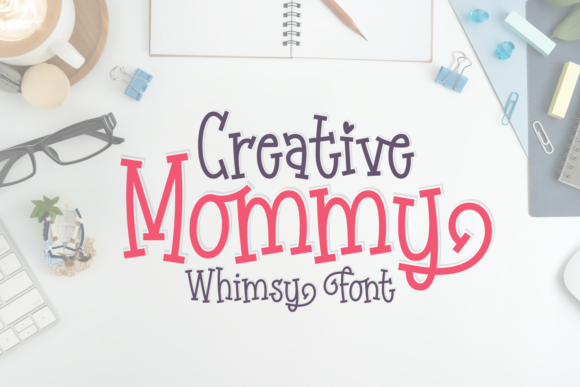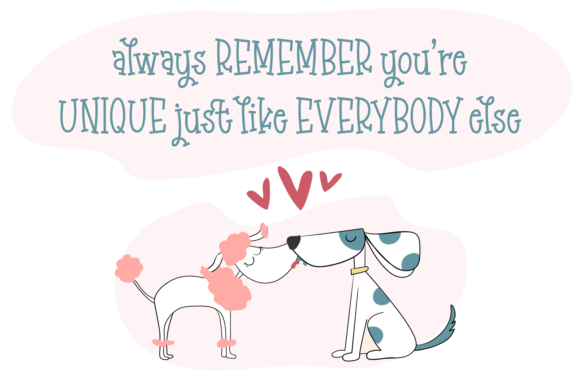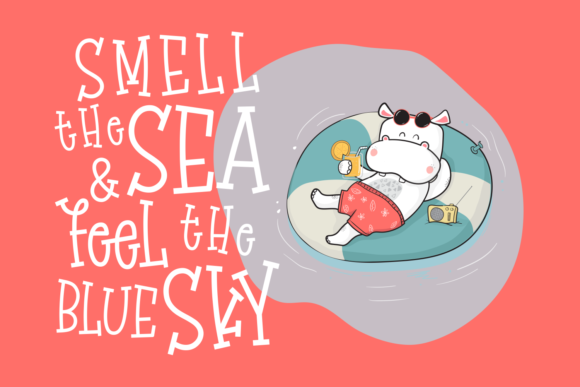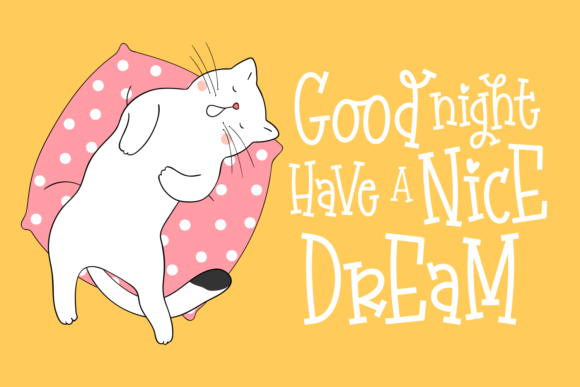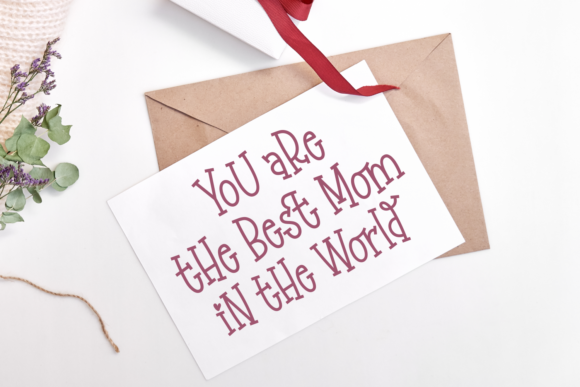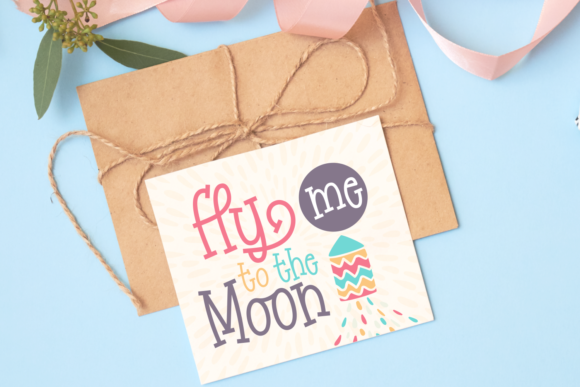
Creative Mommy Font
About Creative Mommy Font
Creative Mommy is a beautiful and delicate handwritten serif font with a whimsical twist. Use it to add a bold charm to any design project!